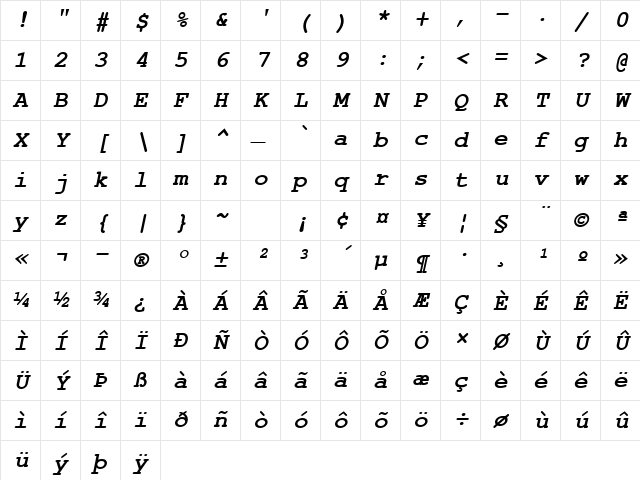
NimbusMonL Bold Italic
NimbusMonL Family
NimbusMonL Bold Italic
Complete NimbusMonL Bold Italic glyph index. Displaying only characters natively supported by NimbusMonL Bold Italic font.
Design Context for NimbusMonL
NimbusMonL is a composed and adaptable typeface that performs quietly and consistently across a wide range of design contexts. The slanted form adds forward momentum and visual energy. Its bold stroke weight gives it real presence on the page.
Pro Tip: Use NimbusMonL for emphasis, pull quotes, and subheadings where its slanted energy can add rhythm to the layout.